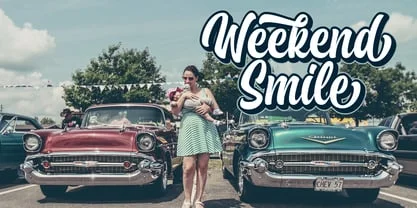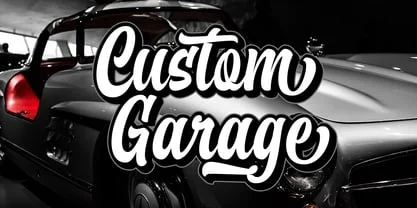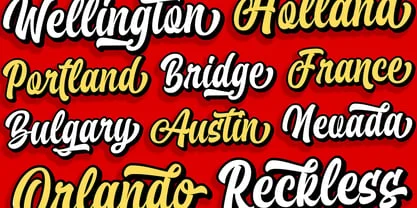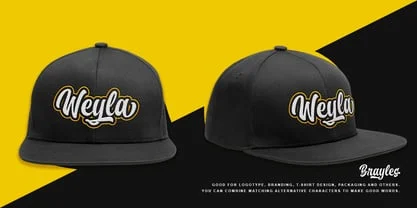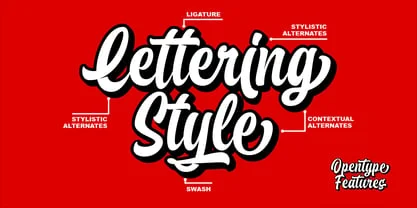
Brayles Font
A good typeface communicates tone before a single word is read. Brayles achieves this through the kind of restraint that lets content lead. The typeface brings an elegant, calligraphic sensibility to a broad range of creative disciplines, with refined proportions and careful stroke modulation that holds up whether the work is print-first or screen-first.
In practice, Brayles proves particularly effective for beauty packaging, greeting cards, wedding invitations, feminine branding, boutique logos. Designers reaching for it find that the type decisions feel resolved rather than laboured — a useful quality when client timelines are tight.
The range of applications extends to fragrance labels, product labels, brand identity systems, web design. That breadth is deliberate: the proportions and spacing were stress-tested across a wide range of mock briefs before the typeface was finalised.
Brand strategists building visual languages find Brayles a reliable choice for projects that demand both personality and restraint. The design avoids the self-conscious quirkiness that dates quickly, settling instead for considered distinctiveness that holds up over time.